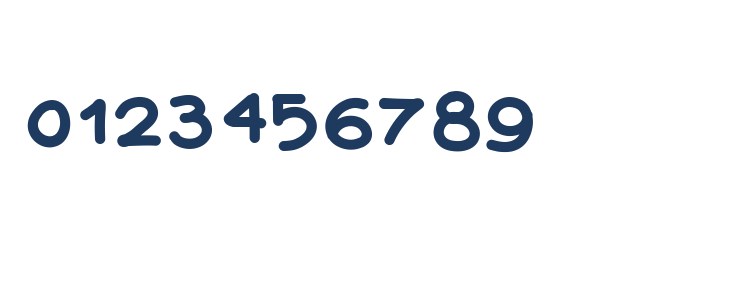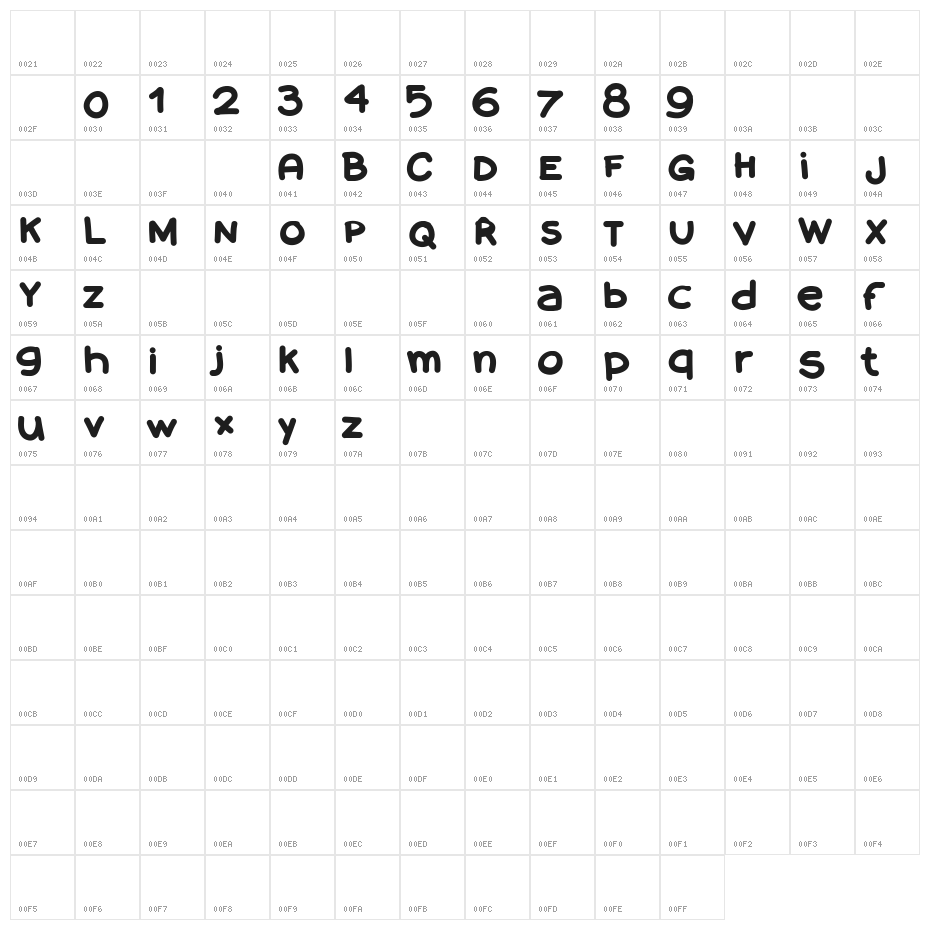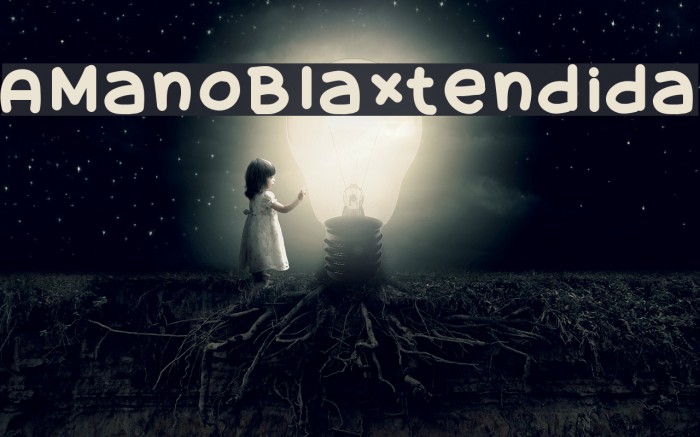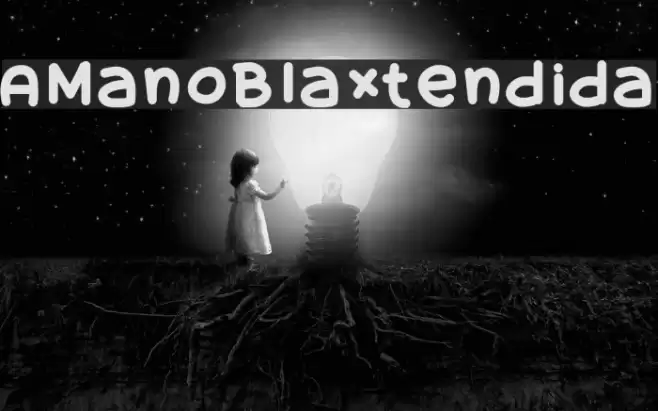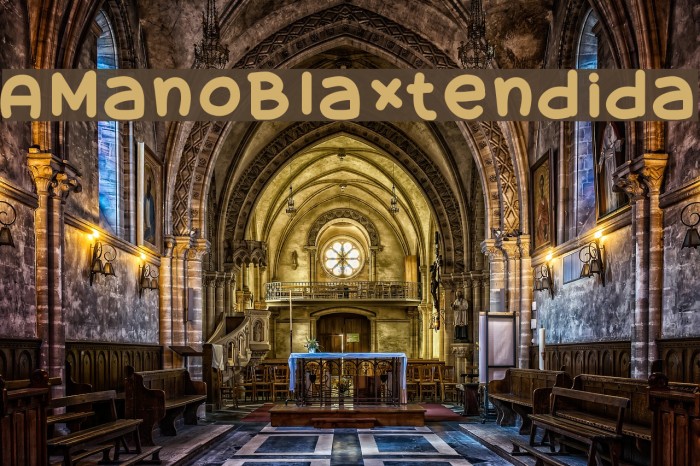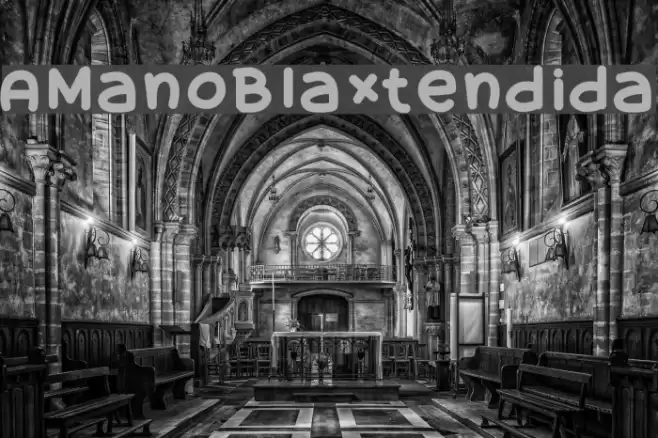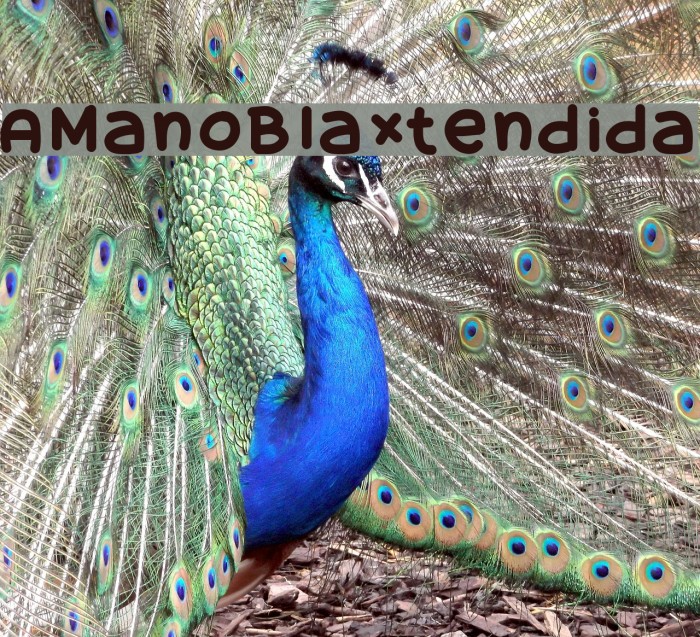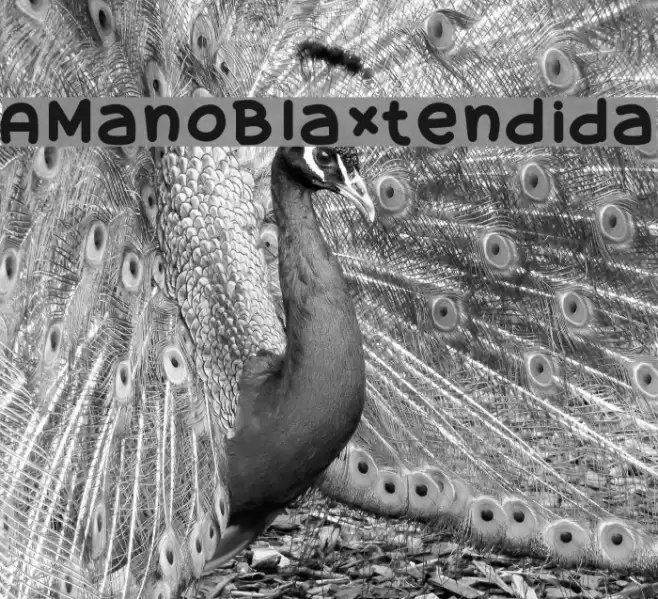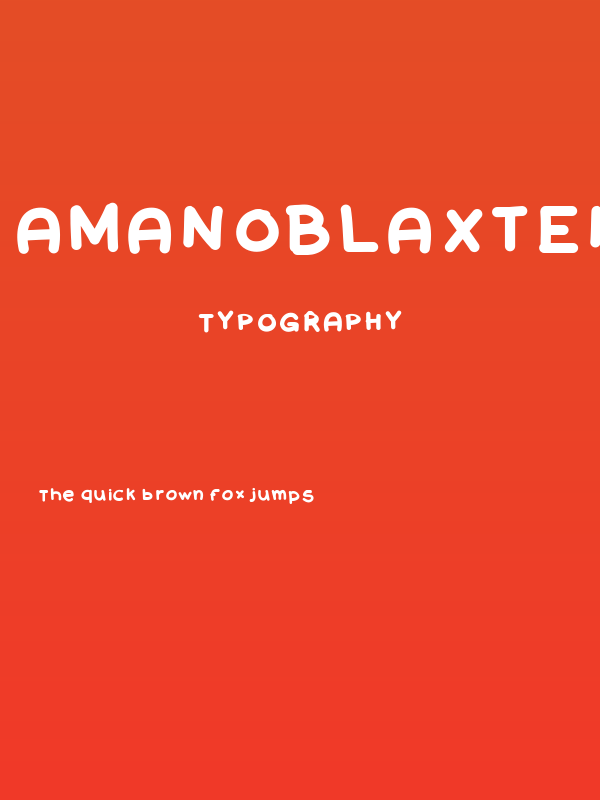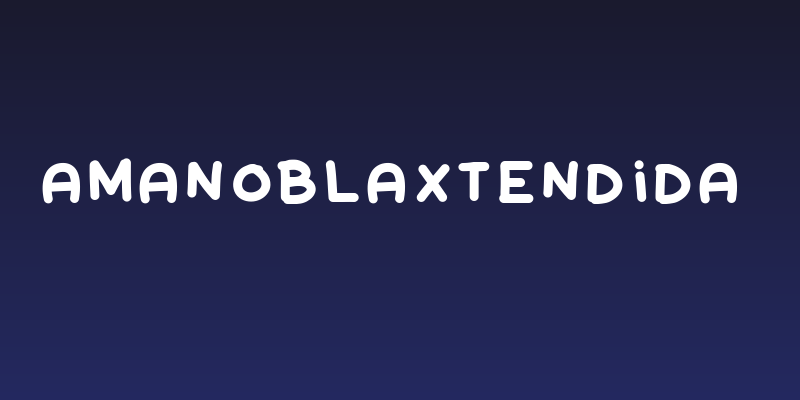
AManoBlaxtendida Font
AManoBlaxtendida Description
This playful and bold font features rounded, bubbly characters that convey a sense of fun and approachability. The letters are evenly spaced and maintain a consistent thickness throughout, giving it a cohesive and uniform appearance. The uppercase and lowercase letters are distinct yet harmonize well together, while the numerals are clear and easily readable. The font's style is reminiscent of hand-drawn or cartoon lettering, making it suitable for informal and creative projects. Its thick strokes and rounded edges contribute to a friendly and inviting look, ideal for capturing attention in a lighthearted manner.
| Overall Style | Playful, Fun, Casual |
| Proposed Projects | Ideal for children's books, comic strips, playful branding, and casual invitations. |